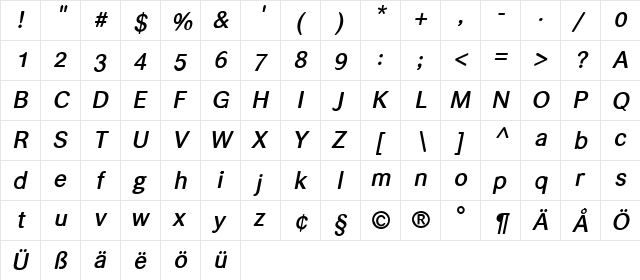
helvari Medium Italic
| Foundry | loosy (fabian pfeifhofer) |
| Designer | loosy (fabian pfeifhofer) |
Design Context for helvari Typeface
helvari offers clean, dependable letterforms without strong stylistic allegiance, making it a practical choice for designers who need flexibility. Its italic angle brings a sense of urgency and motion to the letterforms.
Pro Tip: Use helvari for emphasis, pull quotes, and subheadings where its slanted energy can add rhythm to the layout.